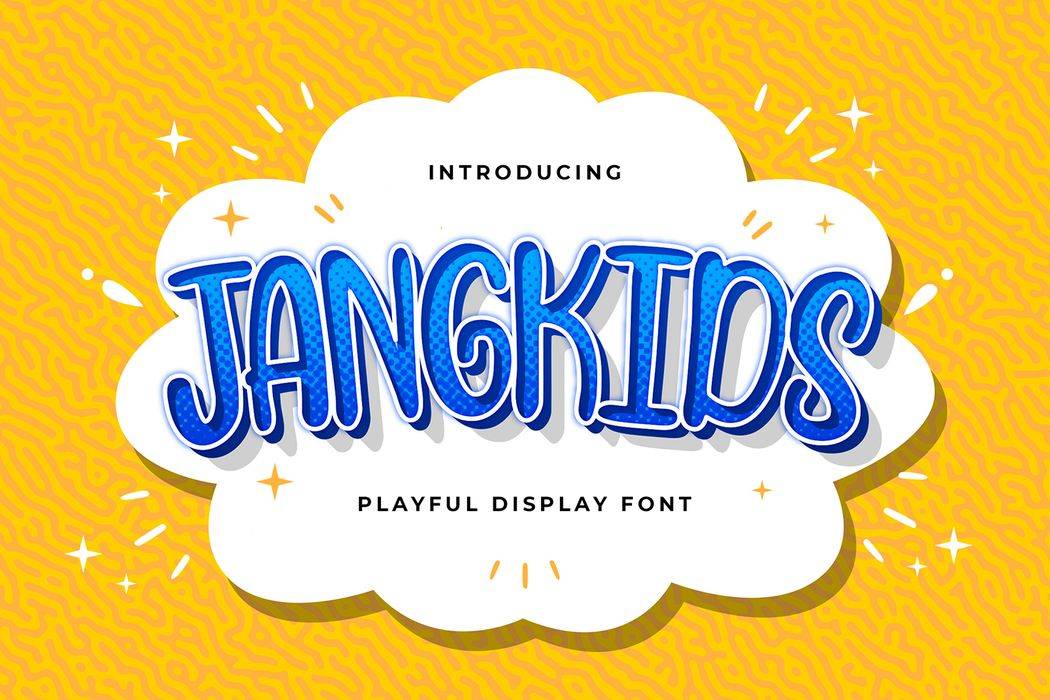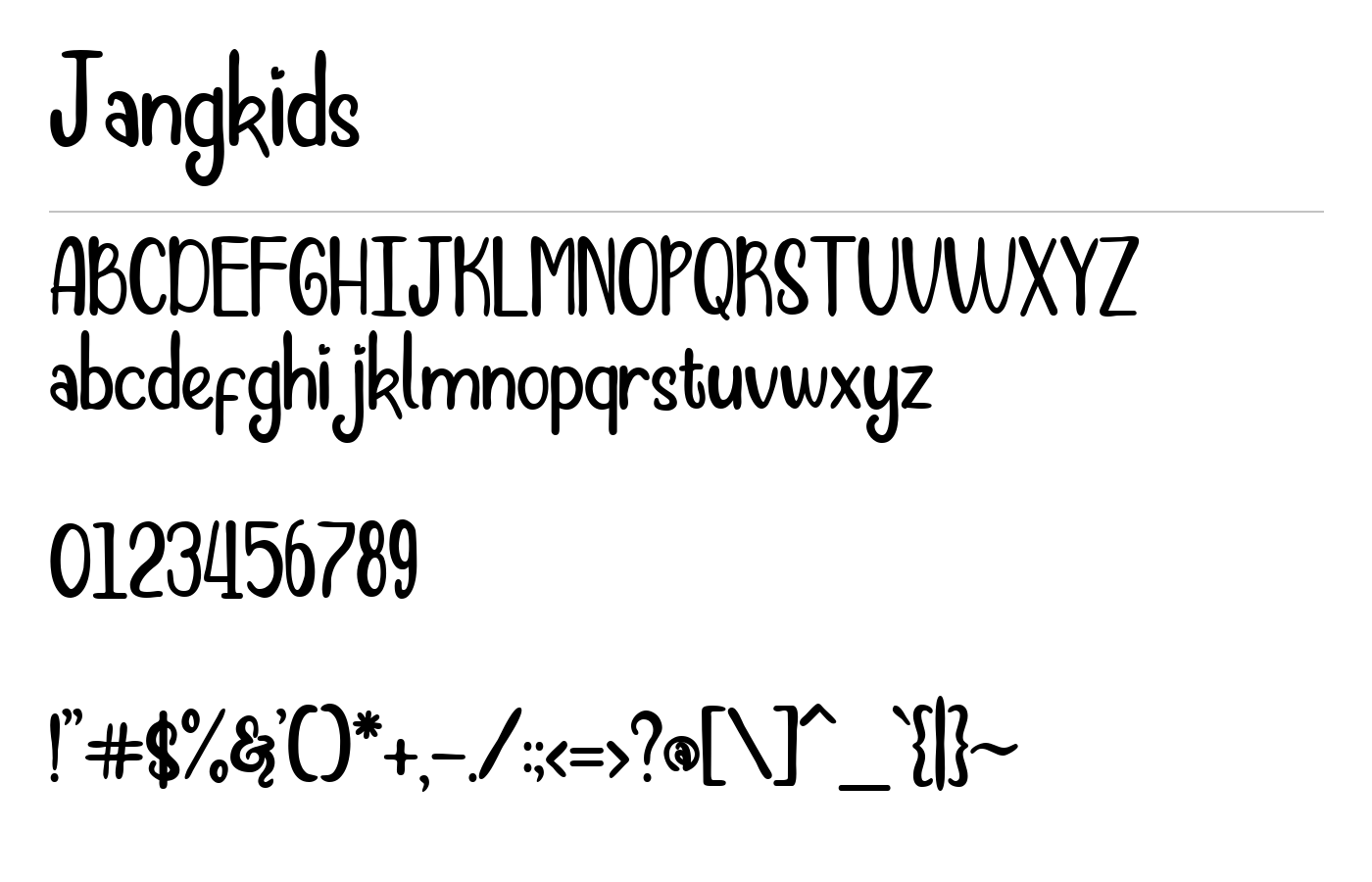
Jangkids is a playful, casual sans serif font with a hand-drawn feel that brings warmth and friendliness to any design. Its tall, slightly irregular letterforms and moderate stroke weight make it ideal for children’s products, informal branding, and creative projects that need a fun yet readable touch. This font works well in headlines, logos, and packaging where a lighthearted, approachable personality is desired.
Jangkids Font
About Jangkids Font
| Font family | Jangkids Font |